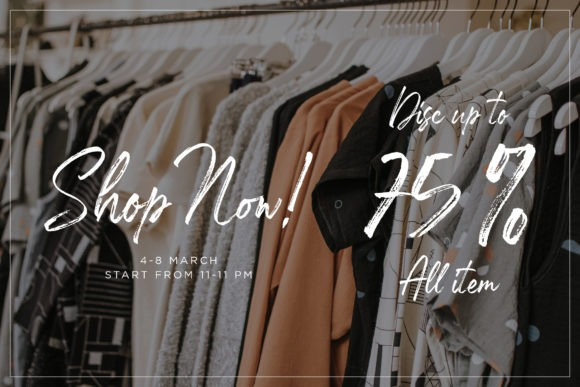
Den Basuky Font
Den Basuky Brush Font is an incredibly distinct, delicate and timeless handwritten font. It looks stunning on wedding invitations, thank you cards, quotes, greeting cards, logos, business cards and every other design which needs a handwritten touch.